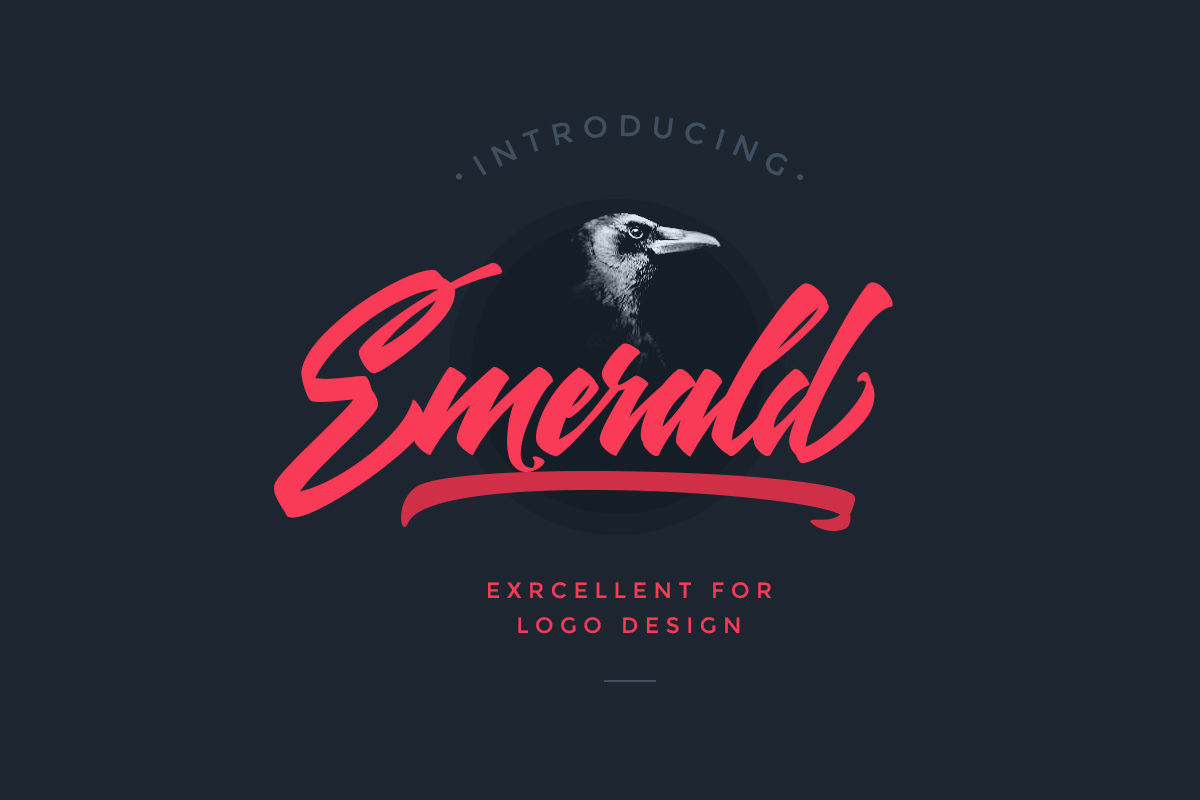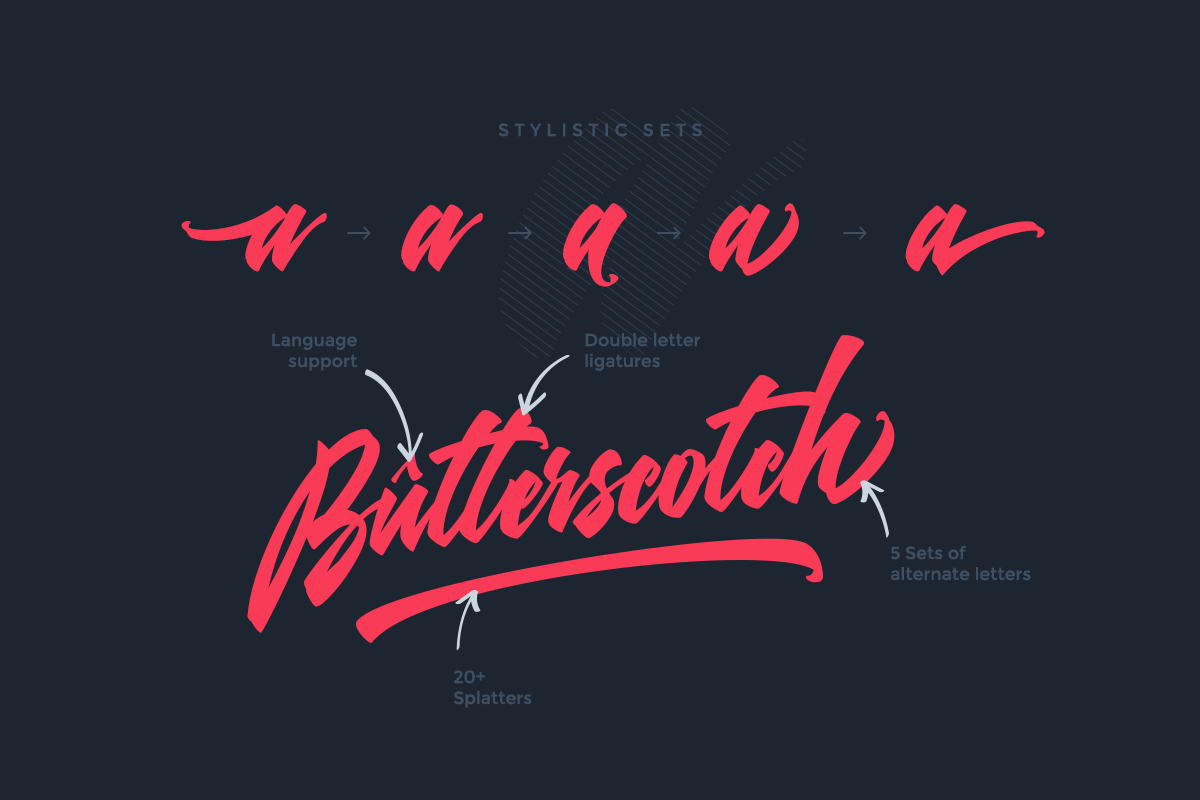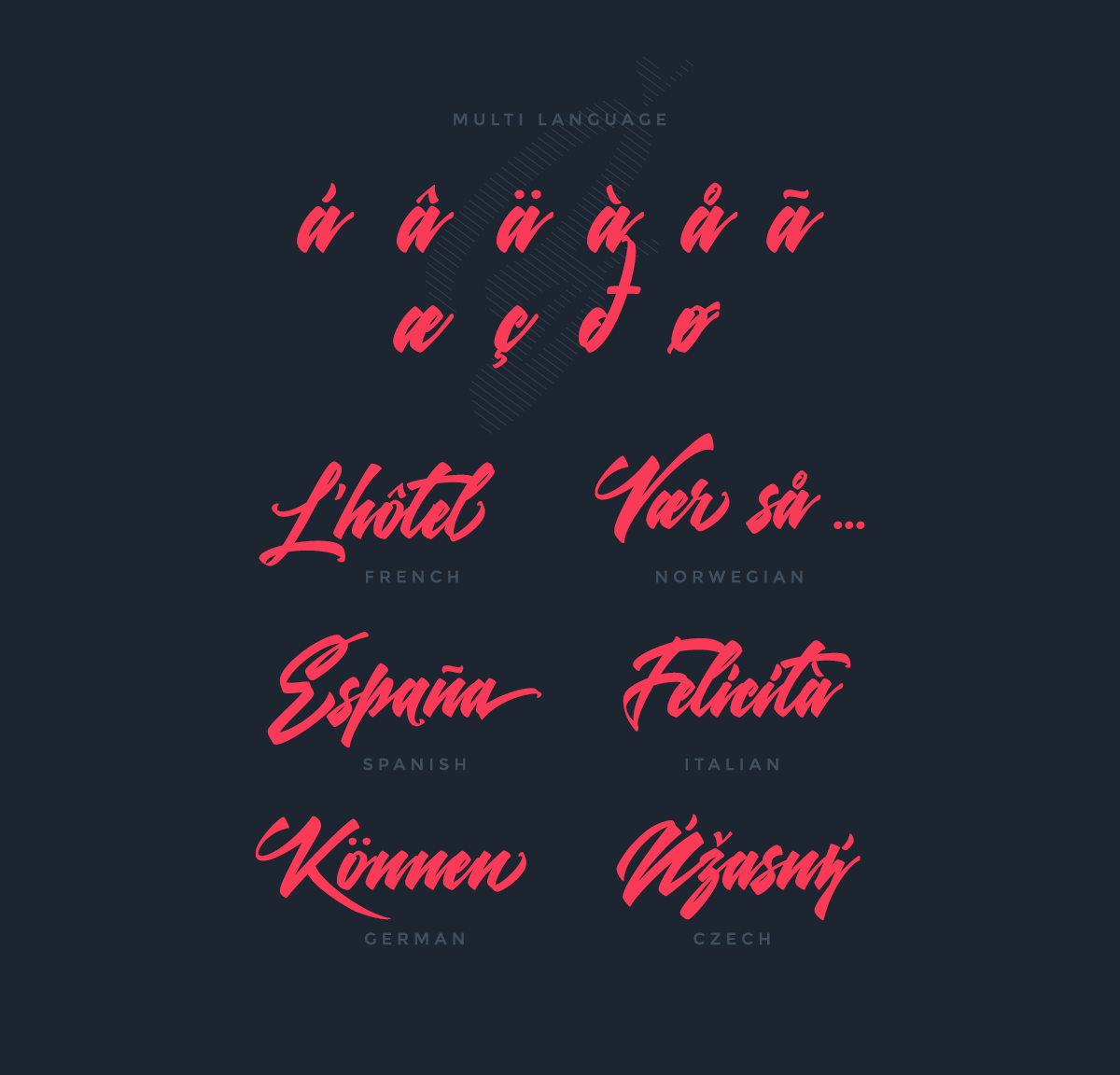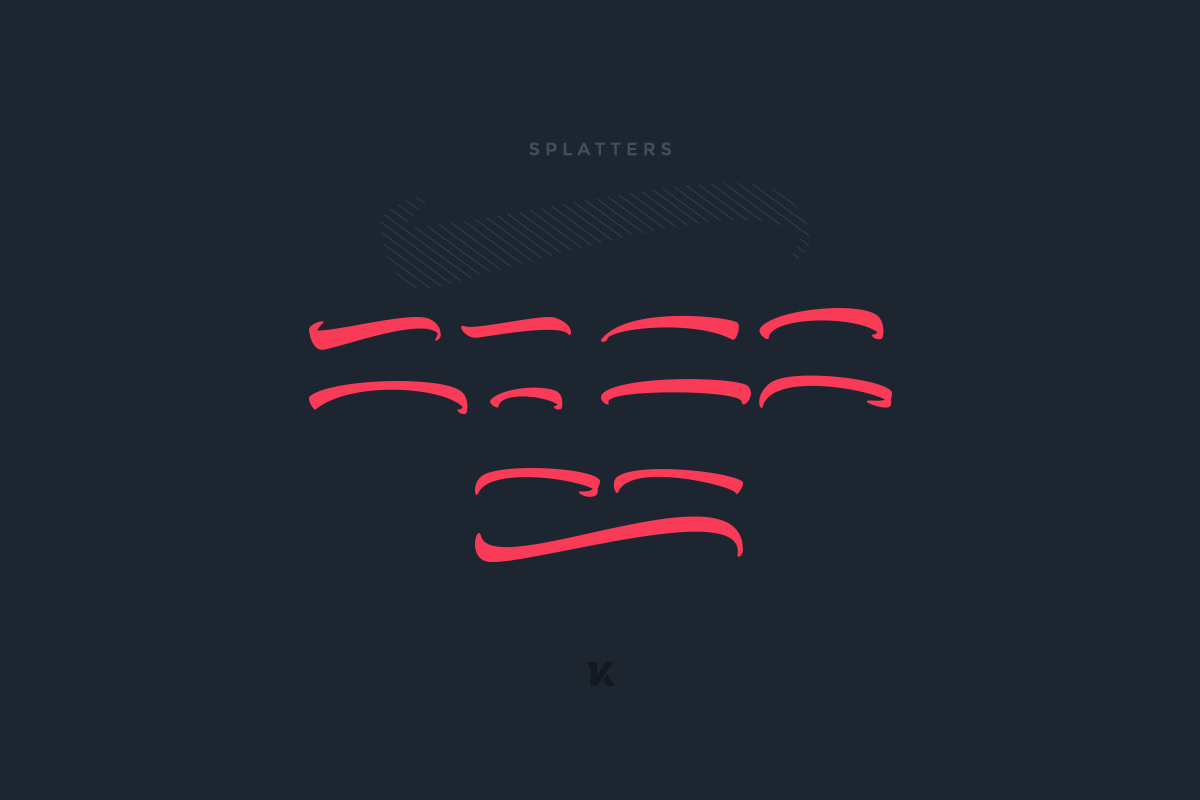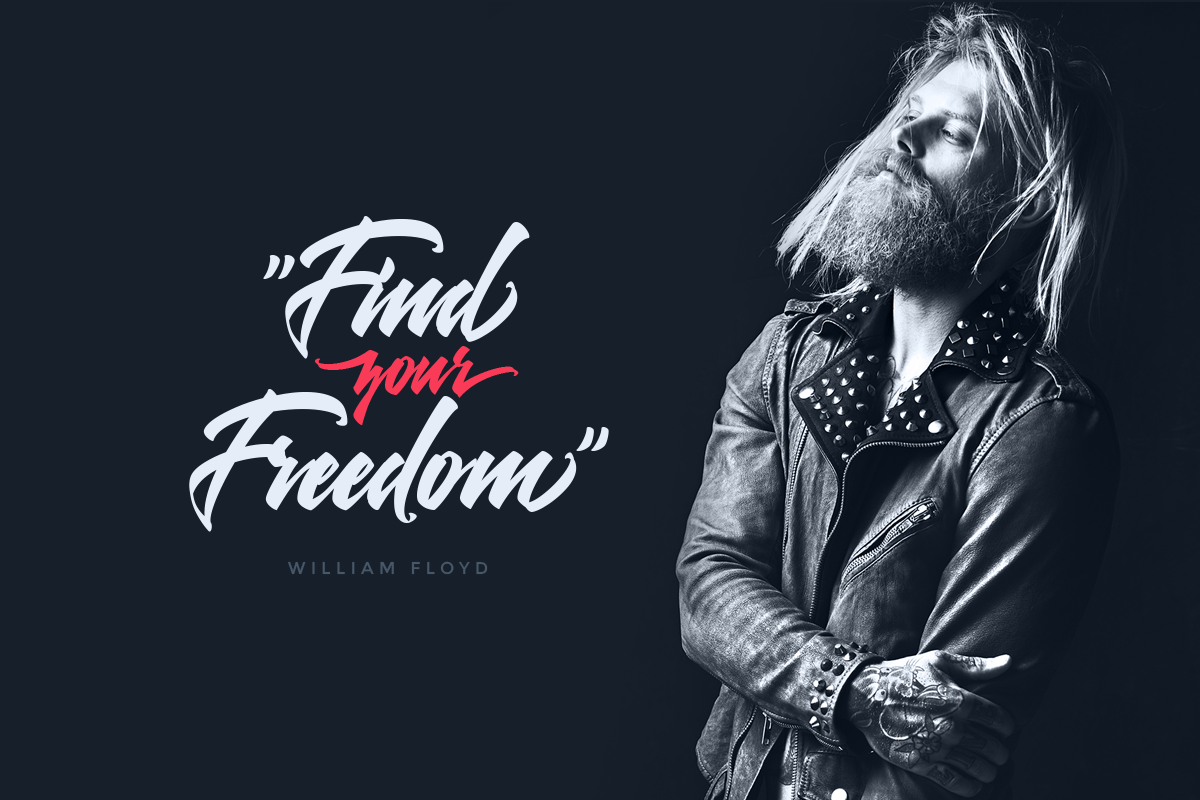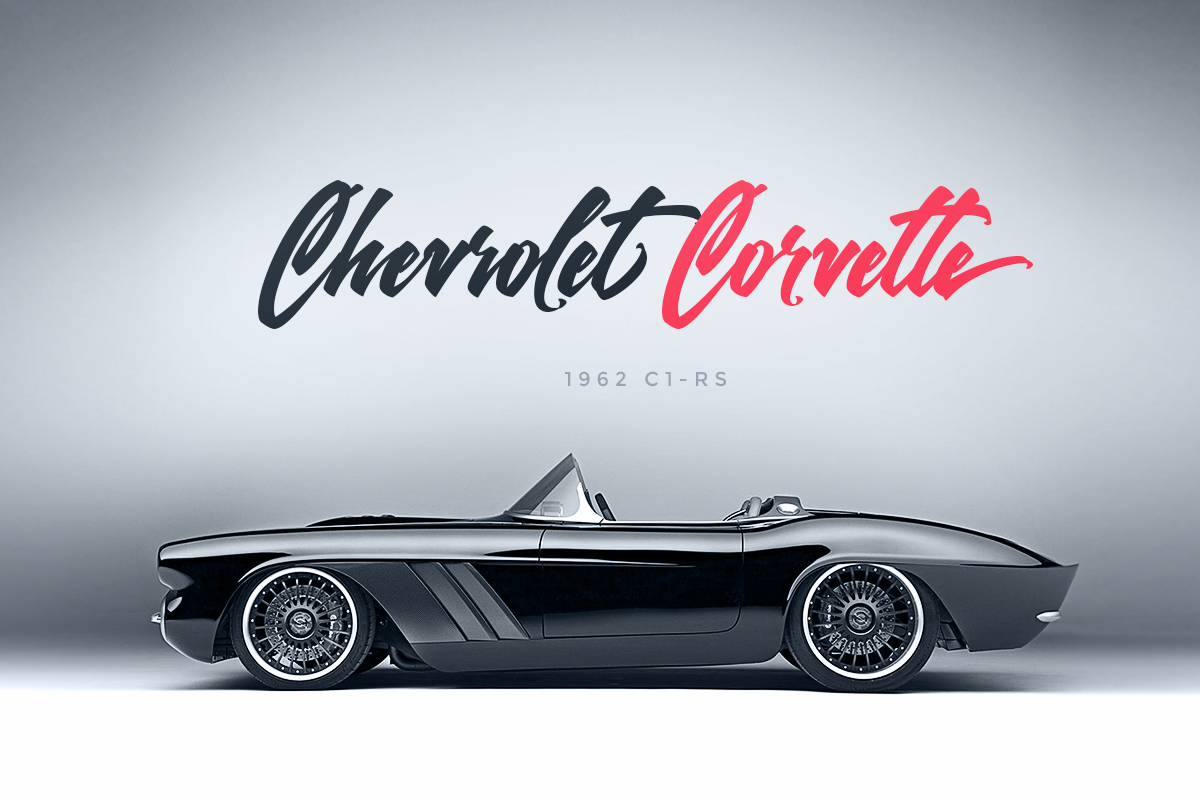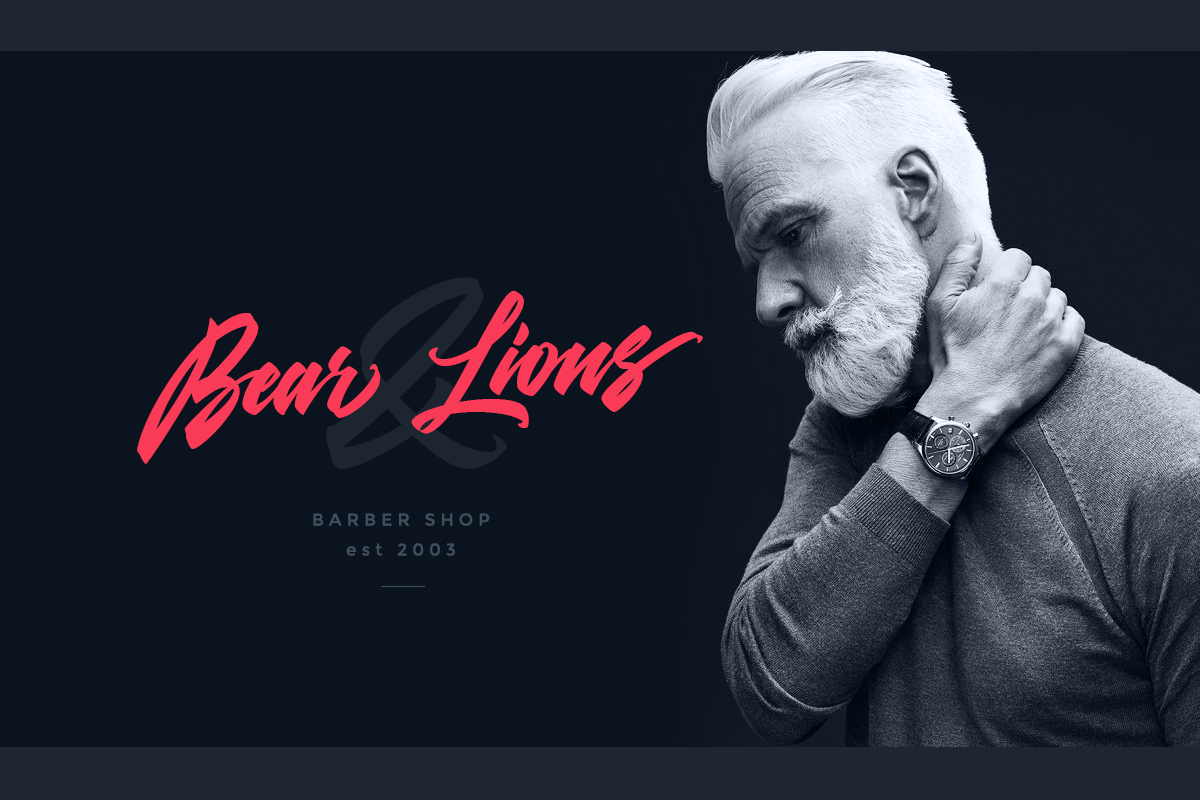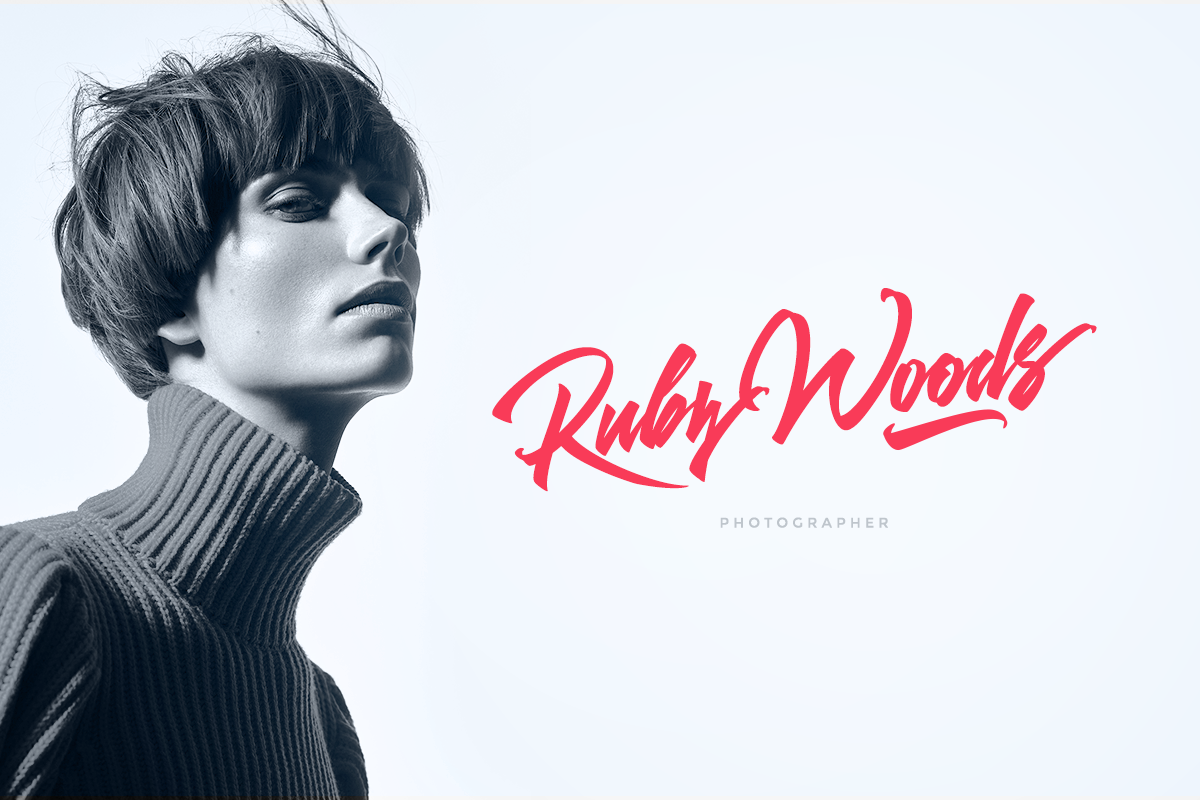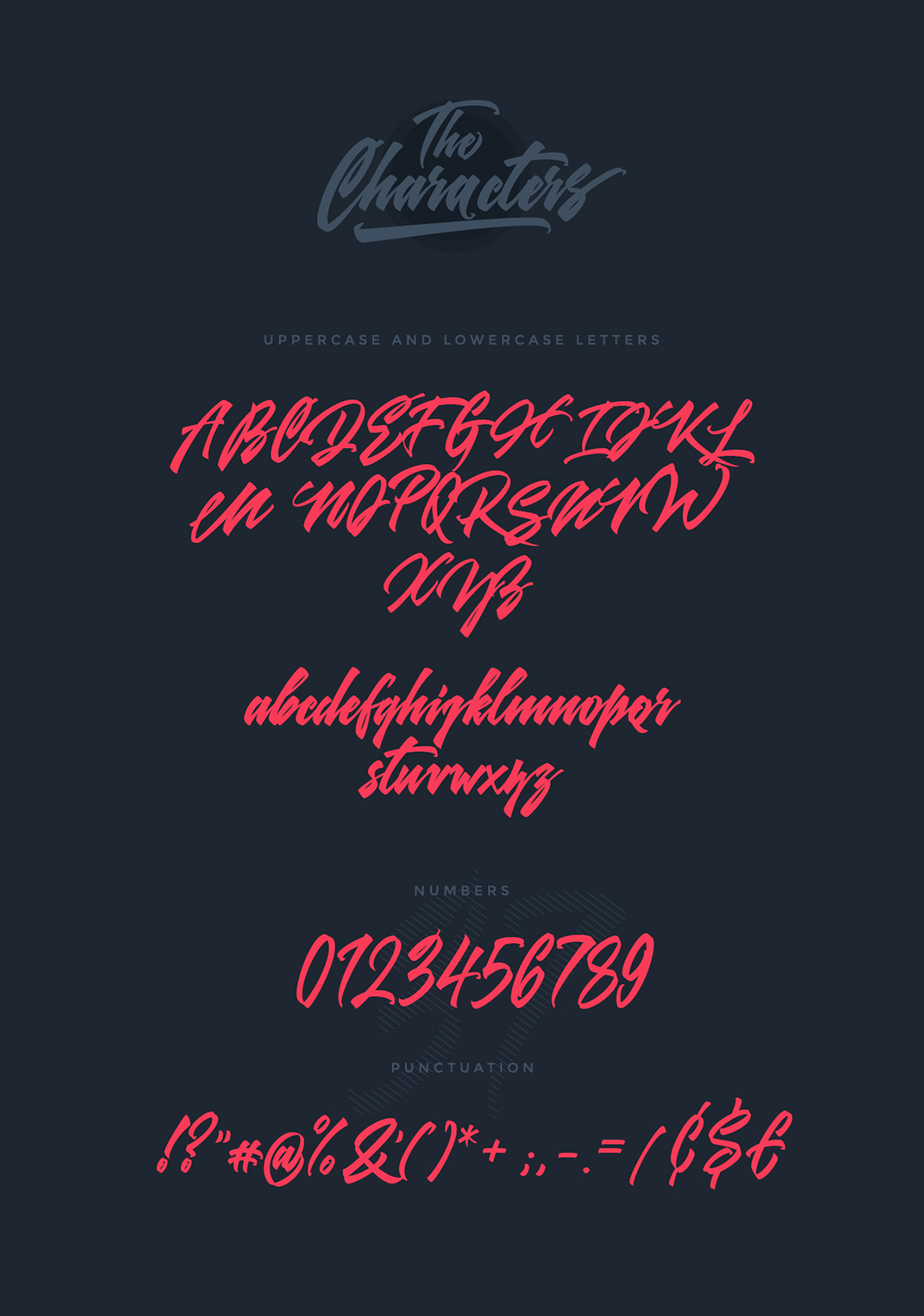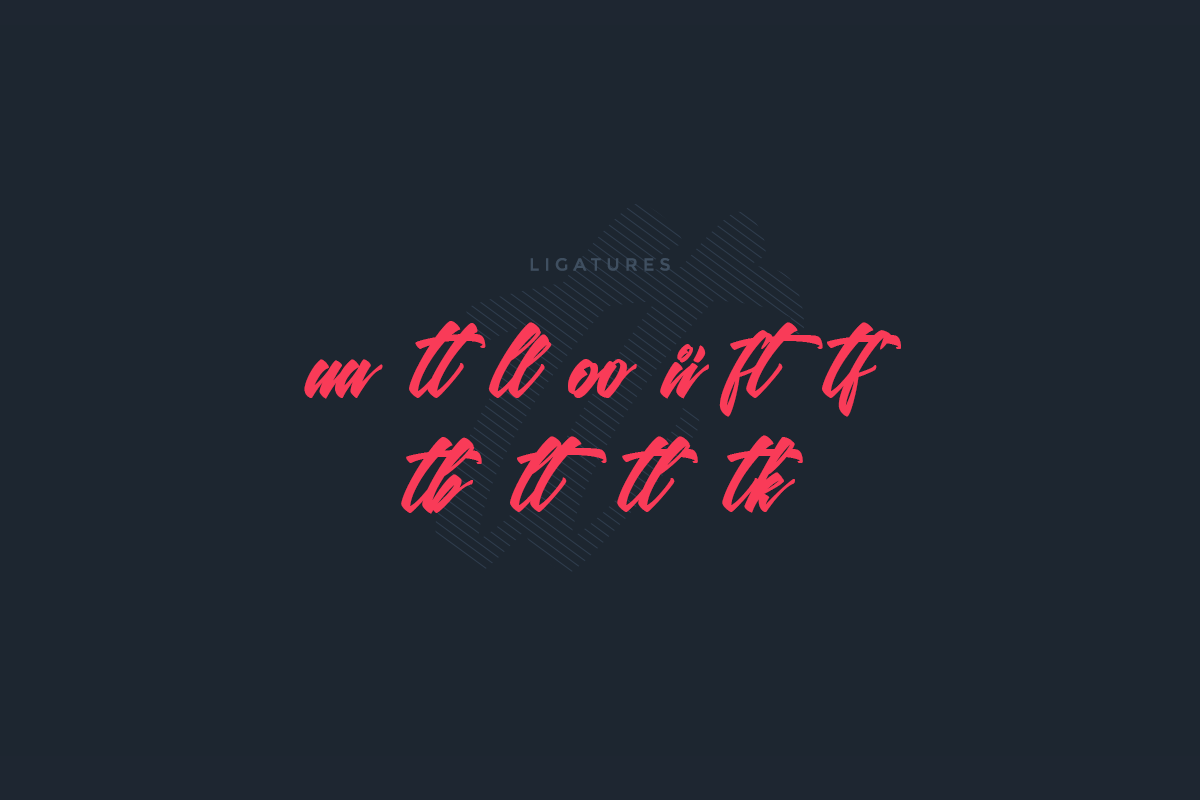
Emerald Font
About Emerald Font
The Emerald font duo by Kavoon.
This stunning handdrawn font comes with 2 variations:
Emerald Regular
Emerald Splatters